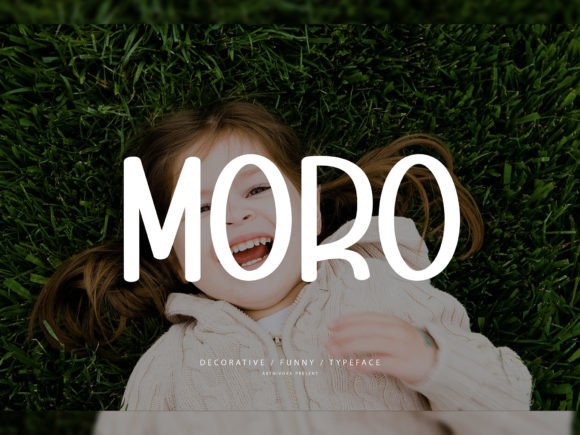
Unleash the captivating power of MORO, the font that ignites your designs with a touch of modern elegance. Its meticulously crafted uppercase letters command attention in headlines, logos, and graphic designs, leaving a lasting impression that speaks volumes. With MORO, clarity and impact go hand in hand, ensuring your message is conveyed with maximum visual impact.
Dive into the world of MORO, a font that embodies the essence of modernity and professionalism. Its clean lines and contemporary aesthetic bring a touch of sophistication to any project, elevating your designs to new heights. Whether you're crafting a captivating logo, an attention-grabbing headline, or stunning graphic elements, MORO is your perfect companion, adding a touch of finesse and polish that sets your work apart.
Experience the versatility of MORO, a font that effortlessly adapts to a multitude of design styles and projects. Its adaptability knows no bounds, allowing you to weave it seamlessly into various creative endeavors. From sleek and minimalist designs to bold and expressive concepts, MORO effortlessly complements your vision, adding a touch of elegance and distinction. Unleash your creativity and explore endless possibilities with MORO, the font that fuels your imagination.